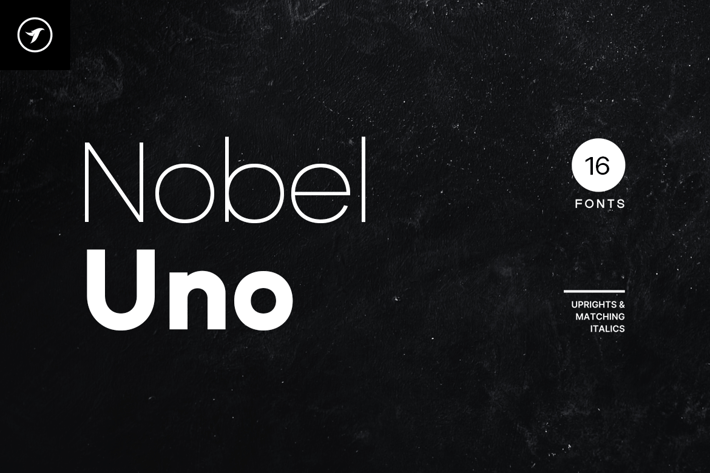
Nobel Uno - Modern Sans-Serif Font Family
ABOUT THE TYPEFACE:
A clean and modern sans-serif typeface, Nobel Uno is ideal for any contemporary design project. It is the fourth typeface from our Uno class font families, which is one of the most advanced and feature-loaded fonts in our portfolio.
Nobel Uno comes in 16 fonts featuring 08 weights of uprights and its matching italics. Designed with powerful opentype features in mind. Each weight includes extended character set featuring 386 glyphs providing support for 120+ languages. This typeface is perfectly suited for graphic design, display, branding and marketing use. It could easily work for web, social media, digital marketing, signage, corporate as well as for editorial design. Adding extra letter spacing will make this font the perfect choice for minimal headlines and logotypes, as shown in the promo designs attached.
FEATURES:
The Nobel Uno font family includes 16 fonts in total, with eight upright weights and Italic equivalents of all eight weights as follows:
- Thin
- Thin Italic
- ExtraLight
- ExtraLight Italic
- Light
- Light Italic
- Regular
- Italic
- Medium
- Medium Italic
- SemiBold
- SemiBold Italic
- Bold
- Bold Italic
- Black
- Black Italic
386 GLYPHS INCLUDED:
Handcrafted and designed with powerful OpenType features in mind, each weight includes extended language support with Western European, Central European, and South Eastern European sets. A total of 386 glyphs are available.
EXTENSIVE LANGUAGE SUPPORT:
Scripts: Latin